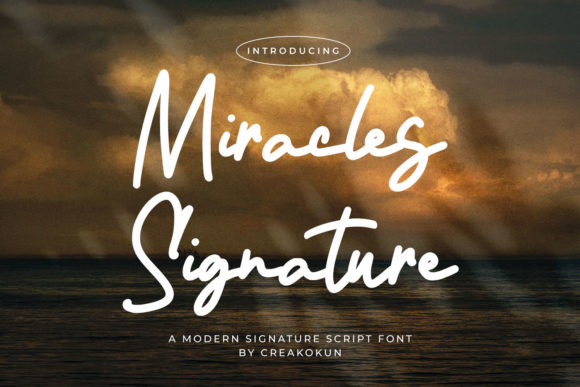
Miracles Signature Font: Elevate Your Design with a Modern Monoline Script
In the world of typography, a signature font can make all the difference in creating a lasting impression. Introducing Miracles Signature, a modern monoline signature handwriting script font that exudes relaxation and elegance. With its unique style, this font is perfect for crafting beautiful cards, stationery art, social media posts, and more. In this article, we’ll dive into the features and benefits of Miracles Signature, and explore how you can leverage its charm to elevate your design game.
The Charm of Miracles Signature Font
Miracles Signature is a carefully crafted font that boasts a relaxed, modern monoline style. Its smooth, flowing lines and subtle curves create a sense of fluidity, making it perfect for designs that require a touch of sophistication. Whether you’re creating a greeting card, a social media post, or a piece of stationery art, this font is sure to captivate your audience with its effortless charm.
Key Features of Miracles Signature Font
- Modern Monoline Style: Miracles Signature features a sleek, modern monoline design that adds a touch of elegance to any project.
- Relaxed and Fluid: The font’s smooth lines and subtle curves create a sense of fluidity, making it perfect for designs that require a relaxed, effortless feel.
- PUA Encoded: Miracles Signature is PUA encoded, which means you can access all the amazing glyphs and ligatures with ease.
- Versatile: This font is perfect for a wide range of design projects, including cards, stationery art, social media posts, and more.
The Benefits of Using Miracles Signature Font
So, why choose Miracles Signature for your design projects? Here are just a few benefits of using this beautiful font:
Elevate Your Design
Miracles Signature is designed to add a touch of sophistication to any project. Its modern monoline style and relaxed feel make it perfect for designs that require a bit of elegance.
Whether you’re creating a greeting card, a social media post, or a piece of stationery art, this font is sure to elevate your design and make it stand out from the crowd.
Easy to Use
One of the best things about Miracles Signature is its ease of use. The font is PUA encoded, which means you can access all the amazing glyphs and ligatures with ease.
No matter what design software you’re using, you can easily access the font’s features and create stunning designs in no time.
Versatile
Miracles Signature is a versatile font that can be used for a wide range of design projects. Whether you’re creating a formal invitation or a casual social media post, this font is sure to fit the bill.
Its relaxed, modern style makes it perfect for designs that require a bit of elegance, but still need to feel approachable and friendly.
Experiment with Different Styles
One of the best things about Miracles Signature is its versatility. Don’t be afraid to experiment with different styles and colors to find the look that works best for your project.
Try pairing the font with different graphics, images, and textures to create a unique and eye-catching design.
Take Advantage of PUA Encoding
Miracles Signature is PUA encoded, which means you can access all the amazing glyphs and ligatures with ease.
Take advantage of this feature to add an extra touch of elegance and sophistication to your design.
Miracles Signature is a beautiful, modern monoline signature handwriting script font that’s perfect for designers who want to add a touch of elegance to their projects.
With its relaxed style, versatility, and ease of use, this font is sure to become a staple in your design toolkit.
- What is Miracles Signature Font?
- Miracles Signature is a modern monoline signature handwriting script font that’s perfect for designers who want to add a touch of elegance to their projects.
- What is PUA Encoding?
- PUA encoding is a feature that allows you to access all the amazing glyphs and ligatures in a font with ease.